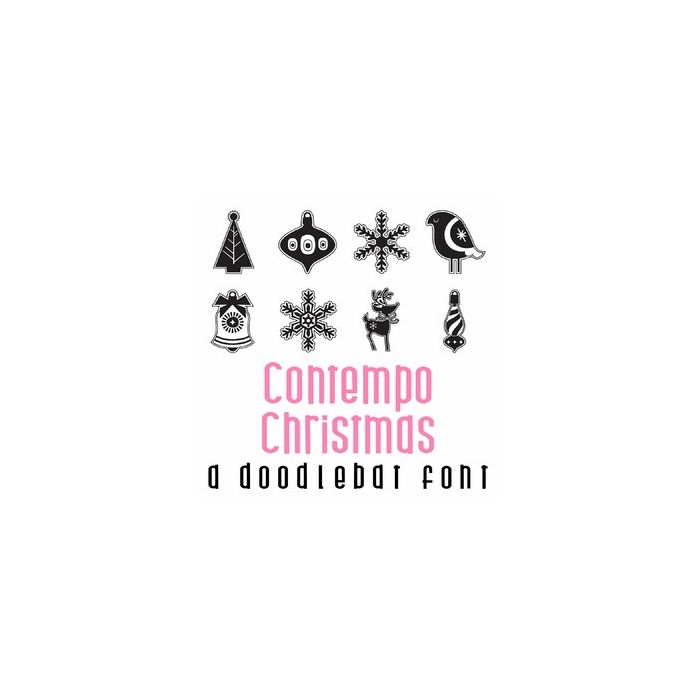
This fun doodlebat font features 26 retro style Christmas designs Perfect for cards, gifts, decor, crafts, scrap book pages, planner stickers and more!